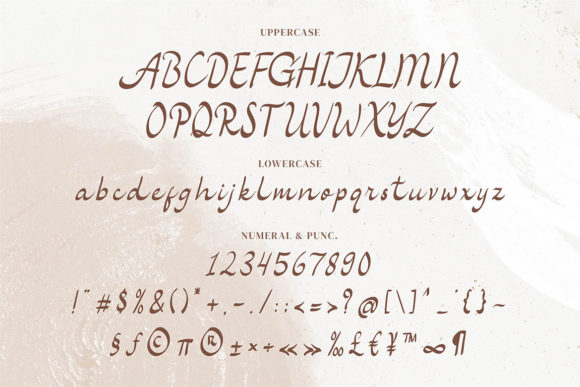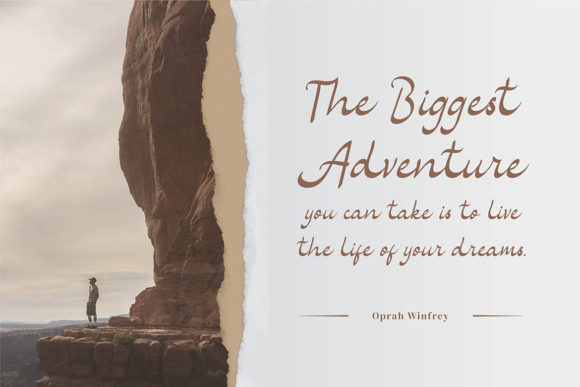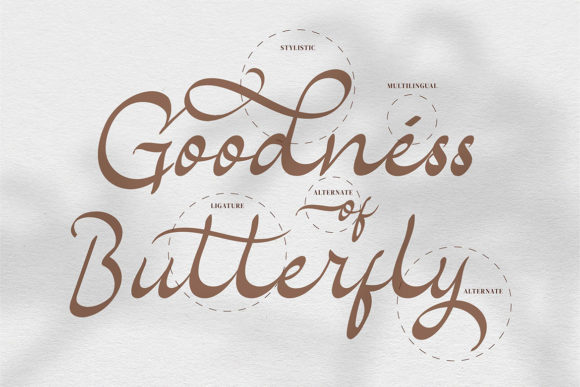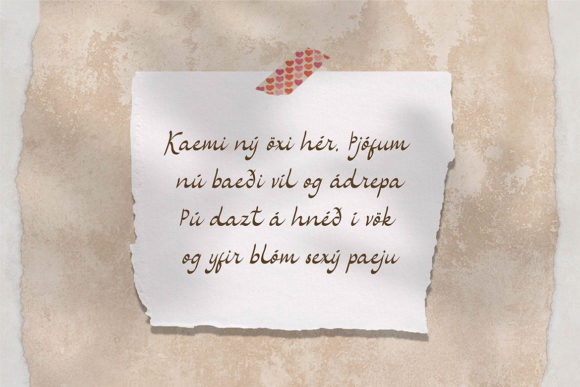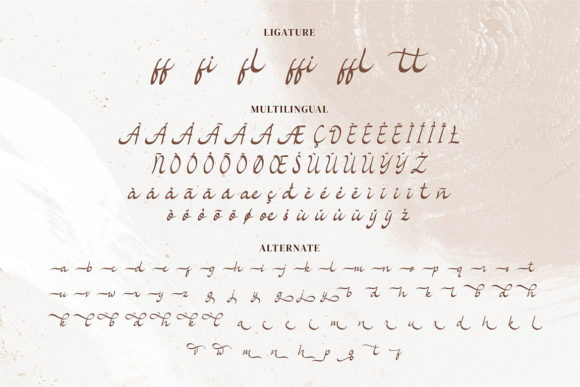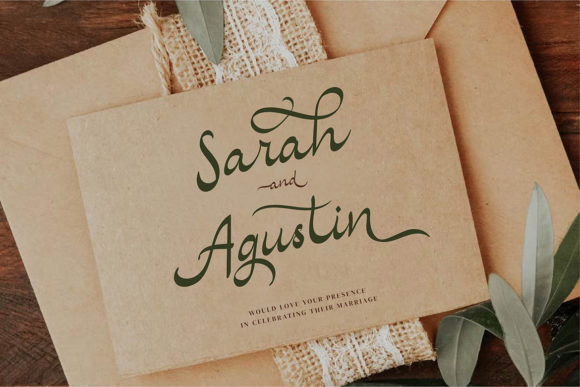
The Almirab Font: A Timeless Script for Creative Projects
Have you ever been in the middle of a design project, and suddenly, you’re stuck on finding the perfect font? I recall a recent experience where I was working on a logo design for a client who wanted a classic, elegant look that would reflect their brand’s heritage. After scouring through numerous font libraries, I stumbled upon the Almirab Script font, which was inspired by Arabic classic handwriting. It was love at first sight! ✨
An Honest Review of Almirab Font
As a designer, I appreciate fonts that offer versatility and character. Here’s what I love about Almirab Font:
- ✅ Classic and elegant design inspired by Arabic handwriting
- ✨ Works well for both short and long text, making it perfect for various design projects
- ✅ Suitable for logo design, social media, movie titles, book titles, and more
- ✅ Pairs well with sans or serif fonts, making it an excellent secondary font choice
While Almirab Font is an excellent choice, it’s not without its quirks:
- ⚠️ Some letters may appear too condensed or stretched, requiring manual adjustment for optimal spacing
- 🤔 Limited language support, which might be a concern for projects requiring multiple languages
- Experiment with OpenType features, such as ligatures and stylistic alternates, to add character to your text
The Story Behind Almirab Font
The Almirab Font was designed with inspiration from classic Arabic handwriting, using a flat pen or signature pen. The designer’s goal was to create a font that would evoke a sense of elegance and sophistication, while still being legible and versatile. The result is a timeless script font that works well for various design projects.
| Font Name | Almirab Font |
| Author | Keristyper |
| What is Almirab Font inspired by? | Almirab Font is inspired by Arabic classic handwriting, using a flat pen or signature pen. |
| Is Almirab Font suitable for long text? | Yes, Almirab Font works well for both short and long text, making it perfect for various design projects. |
| Does Almirab Font support multiple languages? | Almirab Font has limited language support, so it’s best to check the font’s capabilities before using it for multilingual projects. |